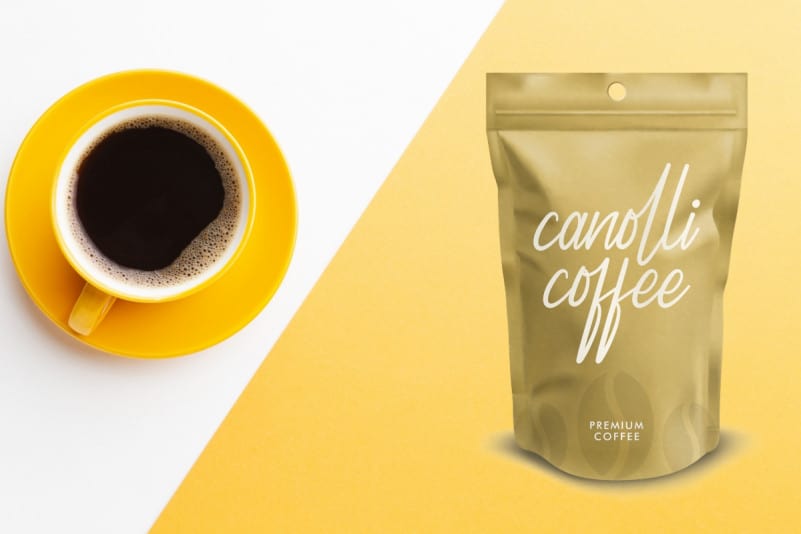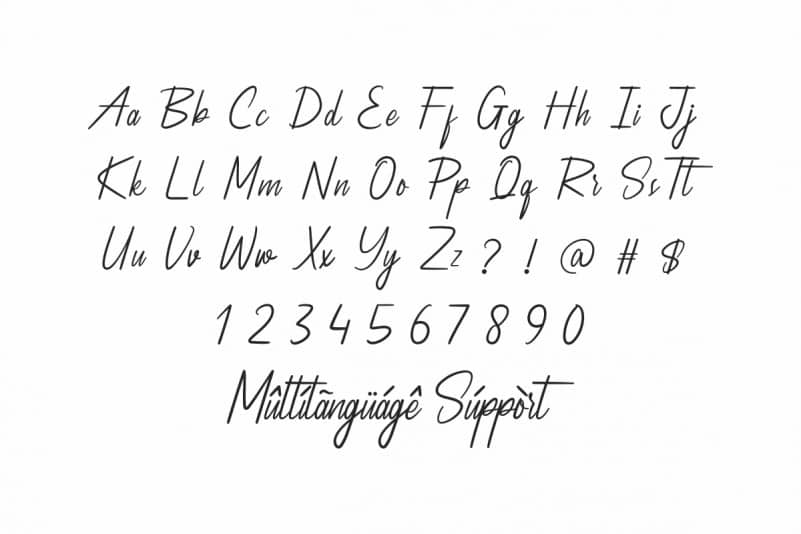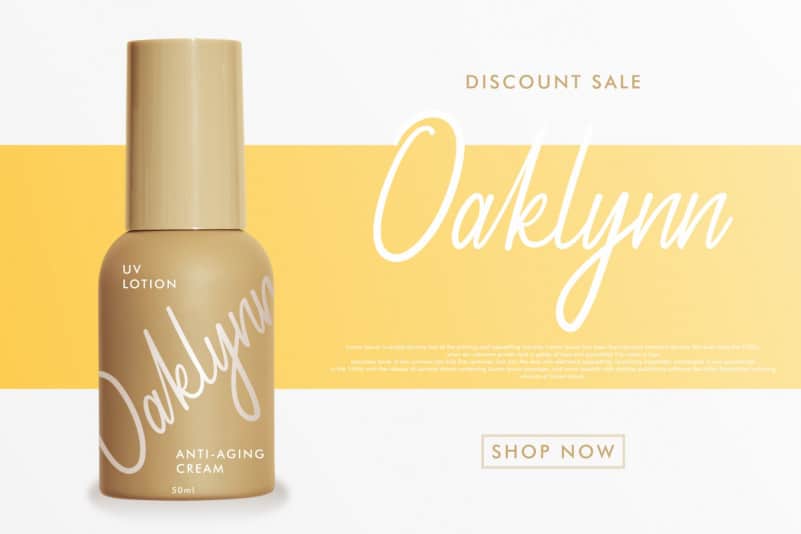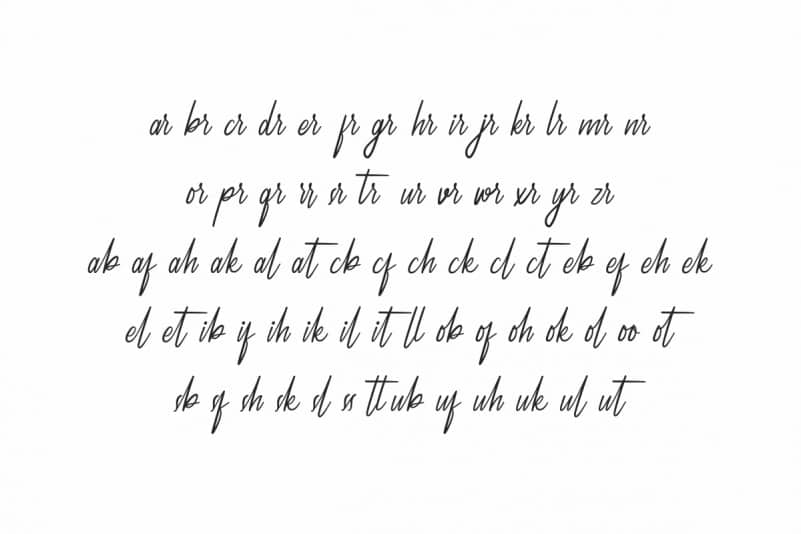
Stockton Handwriting Font
Handcrafted here in our Studio: Indonesia, Stockton will be awesome for any projects (require extended license) including : branding, logo, stationery, business card, signage, flyer, brochure etc. The theme style of the font is elegant, luxury, glamour, gold, vintage, stylish, sophisticated and classic brush style. The font will be match for this typeface: wedding, events, real estate, architect, law firm, florist, gardening, makeup artist, travel, hotel, musician etc